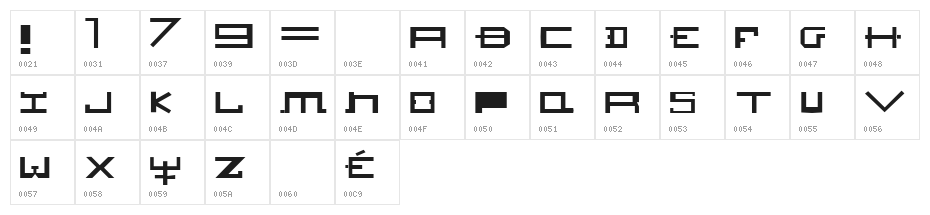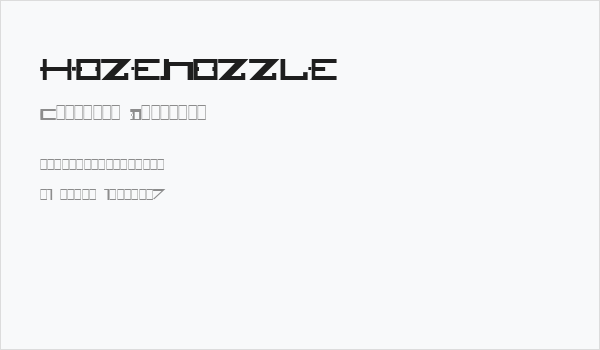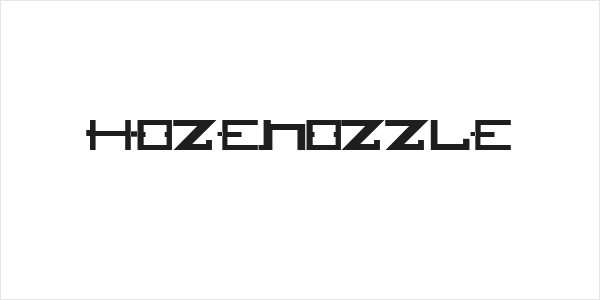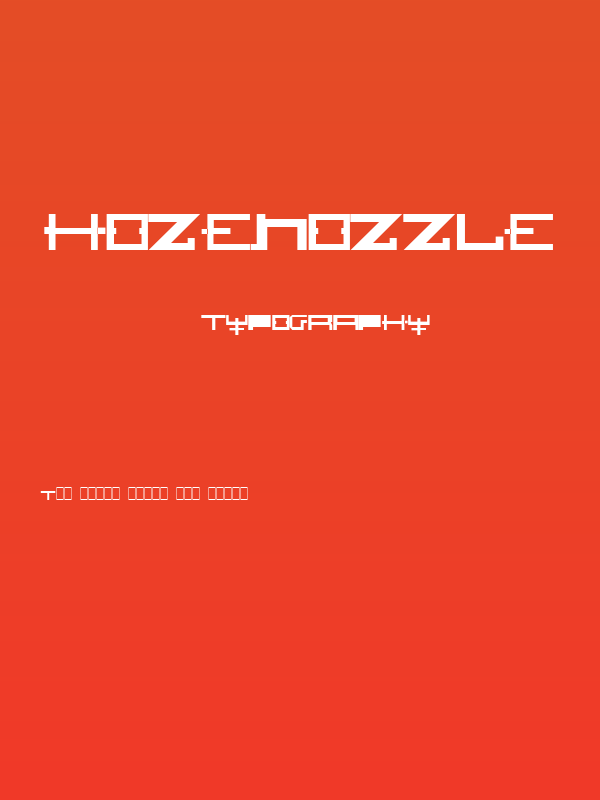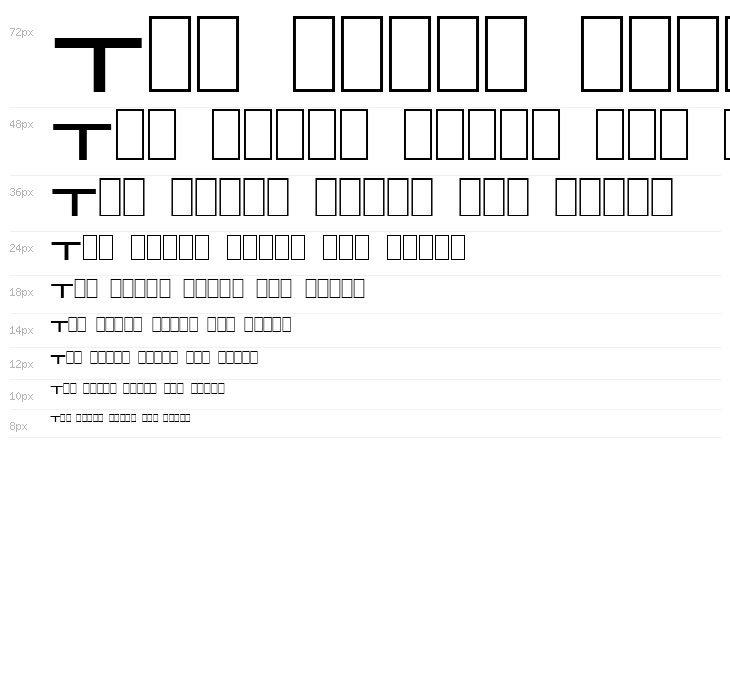
HOZENOZZLE Font
HOZENOZZLE Description
This font features a bold, geometric design with a futuristic and digital aesthetic. The characters are constructed with sharp angles and straight lines, giving them a mechanical and structured appearance. The uppercase letters are uniform in height, while the lowercase letters maintain a similar style but with slight variations in size. The numbers are equally bold and maintain the geometric theme. The special characters are designed to match the overall style, ensuring consistency across all elements. This font is ideal for projects that require a modern and tech-inspired look.
Proposed ProjectsIdeal for tech-related branding, digital interfaces, video game graphics, and futuristic posters.